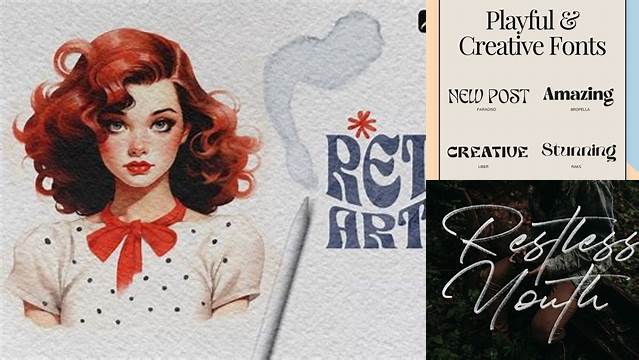
Retro Fonts For Procreate: Unleash Your Inner Artist
Hey there, fellow art enthusiasts! Ever feel like your Procreate creations are missing that certain something? Maybe a touch of nostalgia, a dash of vintage flair? Well, guys, you're in luck! Today, we're diving headfirst into the groovy world of free retro Procreate fonts. We'll explore how these fonts can transport your artwork back in time, giving it a unique, eye-catching aesthetic. Forget those boring, generic fonts – we're talking about fonts that scream **'70s groovy vibes', '80s neon dreams', and everything in between. Get ready to elevate your digital art game with some seriously rad typography. Let's get started!
H2: What Makes a Font 'Retro' and Why Use Them in Procreate?
So, what exactly defines a font as 'retro'? Basically, it's a font that evokes a sense of the past. Think of the iconic fonts of the mid-20th century, the bold, playful styles of the '60s and '70s, or the futuristic, geometric looks of the '80s. These fonts aren't just about the letters; they're about capturing a specific era's mood and design sensibilities. Using free retro Procreate fonts is a fantastic way to add character and personality to your artwork. They can instantly transform a modern design into something with a vintage feel, perfect for projects that need a touch of nostalgia, a throwback vibe, or a unique visual style. Think about it – a poster for a fictional band from the 70s, a social media post with a classic arcade game theme, or even a modern illustration with a vintage twist. These fonts provide a quick and easy way to establish a theme and create a cohesive look and feel. Moreover, embracing retro fonts is a fun way to break from the common fonts, allowing you to express your creativity and stand out from the crowd. It's like adding a secret ingredient to your recipe, giving it a unique flavor that everyone will remember. Whether you are a seasoned digital artist or a beginner, there is so much to discover with retro fonts. Understanding and using these fonts can truly elevate your design and enhance the overall look and feel of your projects. Retro fonts can be a valuable tool in your creative arsenal, so explore them and experiment to find what works best for you.
H3: Unveiling the Charm: Characteristics of Retro Fonts
When it comes to free retro Procreate fonts, several distinctive characteristics set them apart. They often feature unique letterforms, reminiscent of hand-lettering or specific design trends from the past. Think of the rounded, bubble-like letters of the '60s, the bold, geometric shapes of the '80s, or the elegant serifs of classic typefaces. The color palette you choose to accompany your retro fonts is also essential to capture that specific vibe. These fonts frequently incorporate elements of the era they represent, such as groovy swashes, bold outlines, or even subtle textures. Look for fonts with these specific characteristics as they can evoke a sense of nostalgia, add personality, and distinguish your artwork from other designs. Another key aspect of these fonts is their legibility and readability. While some retro fonts can be elaborate or highly stylized, they should still be readable. This is particularly important if you use them in longer texts or body copy. The choice of specific characteristics depends on the aesthetic you want to achieve and the specific era you are trying to represent. Experimentation is essential – mixing and matching different styles to achieve a unique and personal look. Moreover, remember that each retro font tells a story, reflecting the culture, design trends, and spirit of its time. When you use these fonts in your artwork, you are not just adding text; you are also embedding a piece of history into your creations. Learning about these fonts will allow you to use them more effectively and creatively.